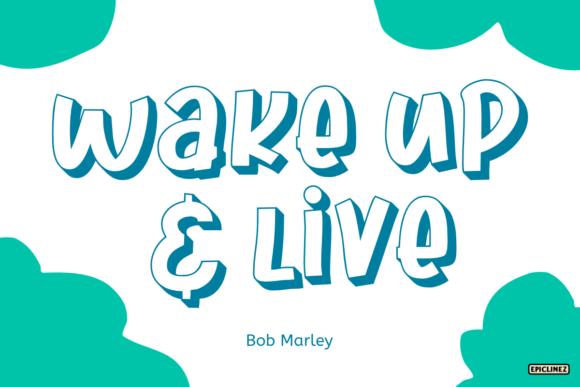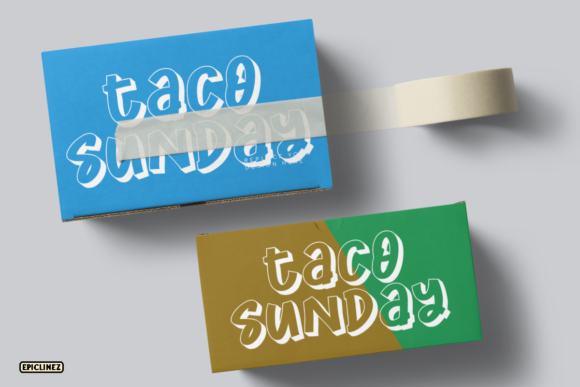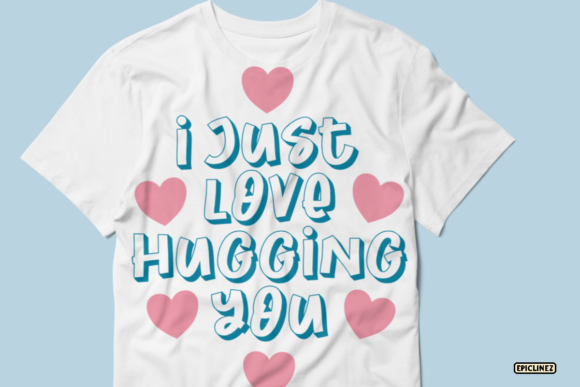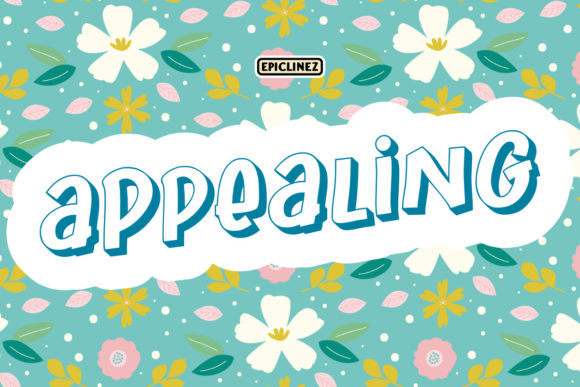
Introducing Appealing Font: The Cute and Playful Display Font to Brighten Up Your Projects
Are you tired of using the same old fonts in your designs? Do you want to add a touch of playfulness and whimsy to your projects? Look no further than Appealing Font, a delightful display font that’s sure to bring a smile to your face. With its childlike charm and creative vibe, Appealing Font is the perfect choice for designers and crafters looking to add some personality to their work.
What Makes Appealing Font So Special?
Appealing Font is a unique and eye-catching display font that’s designed to make your projects stand out. Its cute and playful design is reminiscent of childhood nostalgia, making it perfect for projects that require a touch of innocence and wonder. Whether you’re working on a logo, a poster, or a digital graphic, Appealing Font is sure to add a dash of personality and flair.
One of the things that sets Appealing Font apart is its versatility. With its clean and simple design, it can be used in a variety of contexts, from formal to informal, and from digital to print. Whether you’re creating a business card or a social media graphic, Appealing Font is sure to make a lasting impression.
The Benefits of Using Appealing Font
So why choose Appealing Font for your next project? Here are just a few benefits of using this delightful display font:
- Adds a touch of playfulness: Appealing Font is the perfect way to add some whimsy and fun to your designs. Its childlike charm is sure to bring a smile to your face and make your projects more engaging.
- Versatile: Whether you’re working on a logo, a poster, or a digital graphic, Appealing Font is sure to fit the bill. Its clean and simple design makes it easy to use in a variety of contexts.
- Easy to read: Despite its playful design, Appealing Font is easy to read and understand. This makes it perfect for projects that require a clear and concise message.
- Unique: With its one-of-a-kind design, Appealing Font is sure to make your projects stand out from the crowd. Say goodbye to boring, generic fonts and hello to a more creative and eye-catching design.
How to Use Appealing Font in Your Projects
So how can you use Appealing Font in your projects? Here are a few ideas to get you started:
- Logos: Use Appealing Font to create a fun and playful logo for your business or brand. Its cute and whimsical design is sure to make a lasting impression.
- Posters: Add some personality to your posters with Appealing Font. Its bold and eye-catching design is perfect for grabbing attention and conveying a message.
- Digital graphics: Use Appealing Font to add some flair to your digital graphics, such as social media posts, email newsletters, and website headers.
- Crafting projects: Appealing Font is also perfect for crafters who want to add a personal touch to their projects. Use it to create handmade cards, gift tags, and other paper crafts.
Tips for Getting the Most Out of Appealing Font
Here are a few tips for getting the most out of Appealing Font:
- Experiment with different sizes: Appealing Font looks great in a variety of sizes, from small and delicate to large and bold. Experiment with different sizes to find the one that works best for your project.
- Pair it with other fonts: Appealing Font pairs well with a variety of other fonts, from serif to sans serif. Experiment with different font combinations to find the one that works best for your project.
- Use it in combination with images: Appealing Font looks great in combination with images, such as illustrations, photographs, and graphics. Use it to add a touch of personality to your visual designs.
In conclusion, Appealing Font is a cute and playful display font that’s sure to brighten up any project. With its childlike charm and creative vibe, it’s the perfect choice for designers and crafters looking to add some personality to their work. Whether you’re working on a logo, a poster, or a digital graphic, Appealing Font is sure to make a lasting impression. So why not give it a try and see the difference it can make?